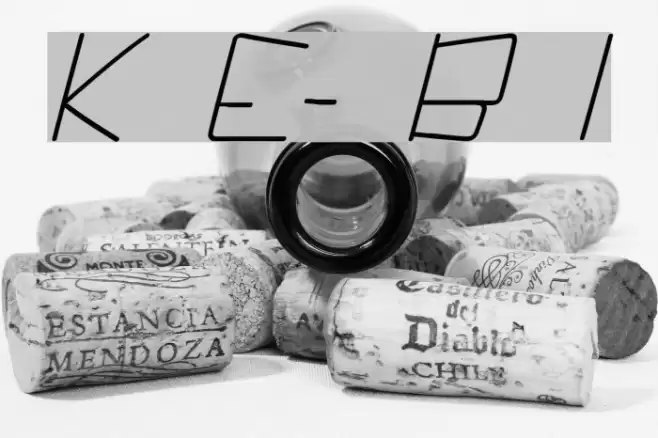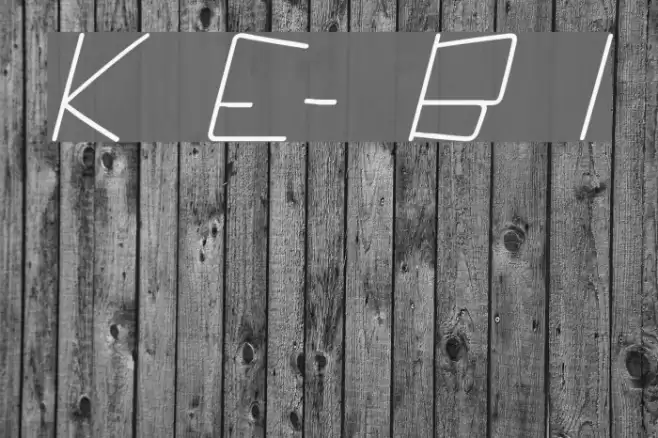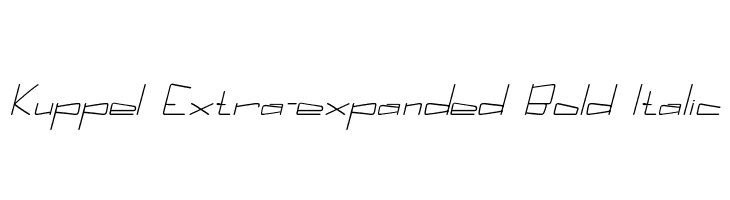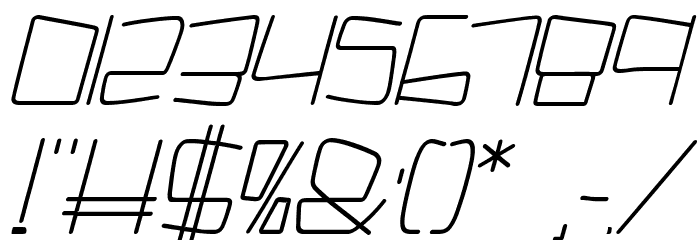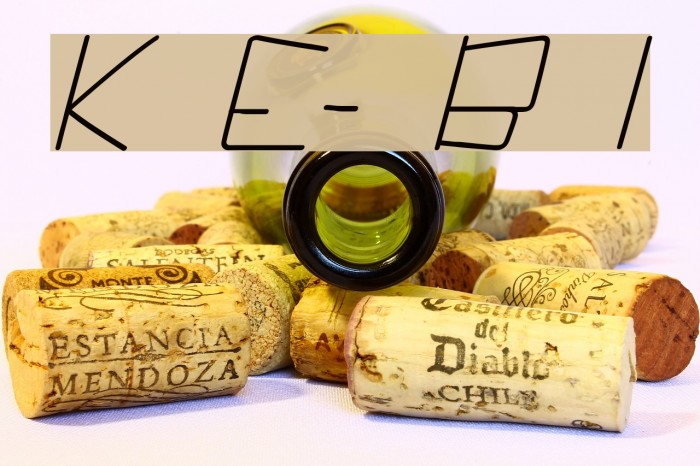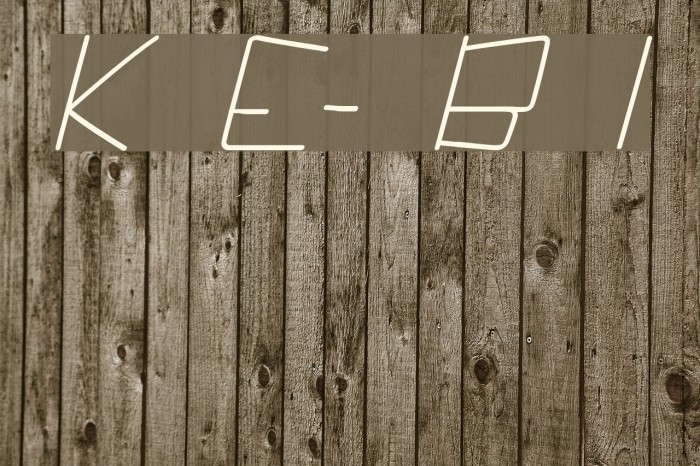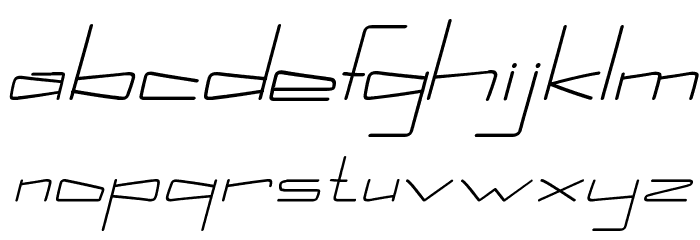
Kuppel Extra-expanded Bold Italic Font
Kuppel Extra-expanded Bold Italic Description
This font features a unique, futuristic design with an extra-expanded width and bold weight. The italic style adds a dynamic, forward-leaning appearance, enhancing its modern aesthetic. Each character is constructed with clean, geometric lines, giving it a technical and precise look. The uppercase and lowercase letters maintain a consistent style, with sharp angles and a uniform stroke width. The numerals and special characters follow the same design principles, ensuring a cohesive overall appearance. This font is ideal for projects that require a contemporary and innovative touch.
A futuristic, extra-expanded bold italic font with geometric lines from Uncategorized fonts.
- Proposed Projects: Ideal for technology branding, sci-fi posters, modern logos, and digital interfaces.
- Width: Expanded
- Overall Style: Futuristic